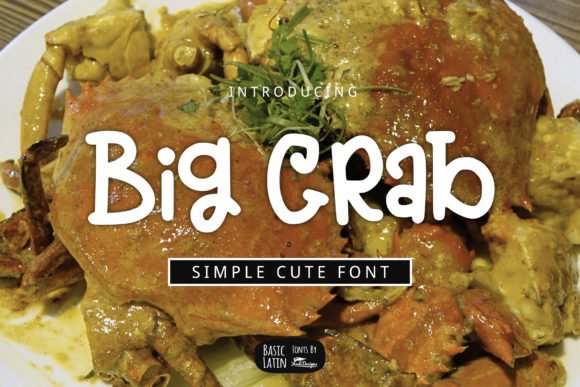
Get Ready to Crack Open Your Creativity with Big Crab Font
You know that moment when you’re working on a project and everything just clicks? The words start flowing, the ideas start popping, and you’re in the zone? That’s what we’re talking about when we say Big Crab Font is the perfect companion for your creative journey.
Big Crab Font is a bold, quirky, and whimsical handwritten font that adds a touch of personality to any design. Whether you’re a graphic designer, a writer, or a small business owner, this font is sure to become your top choice. With its unique and interesting style, Big Crab Font is the perfect tool to help you stand out from the crowd and make your mark.
As a designer, you know how valuable a great font can be. Big Crab Font is more than just a font – it’s a way to express yourself and bring your ideas to life. So why settle for ordinary when you can crack open your creativity with Big Crab Font?
Big Crab Font Key Features
- Unique Characteristics: The font features a distinctive, hand-drawn style with bold and playful lines, making it perfect for use in creative and whimsical designs.
- Font Weight: The font comes in two weights: Regular and Bold, allowing for versatility in its use and application.
Designer Review: Big Crab Font
Overall, I think Big Crab Font is a quirky and fun addition to any design project. It’s got a unique, hand-drawn feel that’s perfect for creating a playful atmosphere.
Here are some things that work well about Big Crab Font:
- ✨ The bold, expressive strokes create a sense of movement and energy.
- ✨ The font is highly customizable, making it easy to adjust to fit your design needs.
- ✨ It’s a great choice for creating eye-catching headlines and titles.
- ⚠️ The font may be a bit too ornate for some designs, which could make it difficult to read.
- ⚠️ The lack of consistency in the letterforms can make it challenging to use for large blocks of text.
- ⚠️ It may not be the best choice for formal or professional designs.
Overall, I think Big Crab Font is a great addition to any designer’s toolkit. While it may have some limitations, its unique personality and customization options make it a great choice for the right project.
Big Crab Font is perfect for creating playful and whimsical designs. Here are some tips and common use cases:
- Use Big Crab Font for headings and titles to add a touch of personality to your design.
- Experiment with different font sizes and styles to create a unique and eye-catching design.
- Combine Big Crab Font with other playful fonts to create a fun and eclectic design.